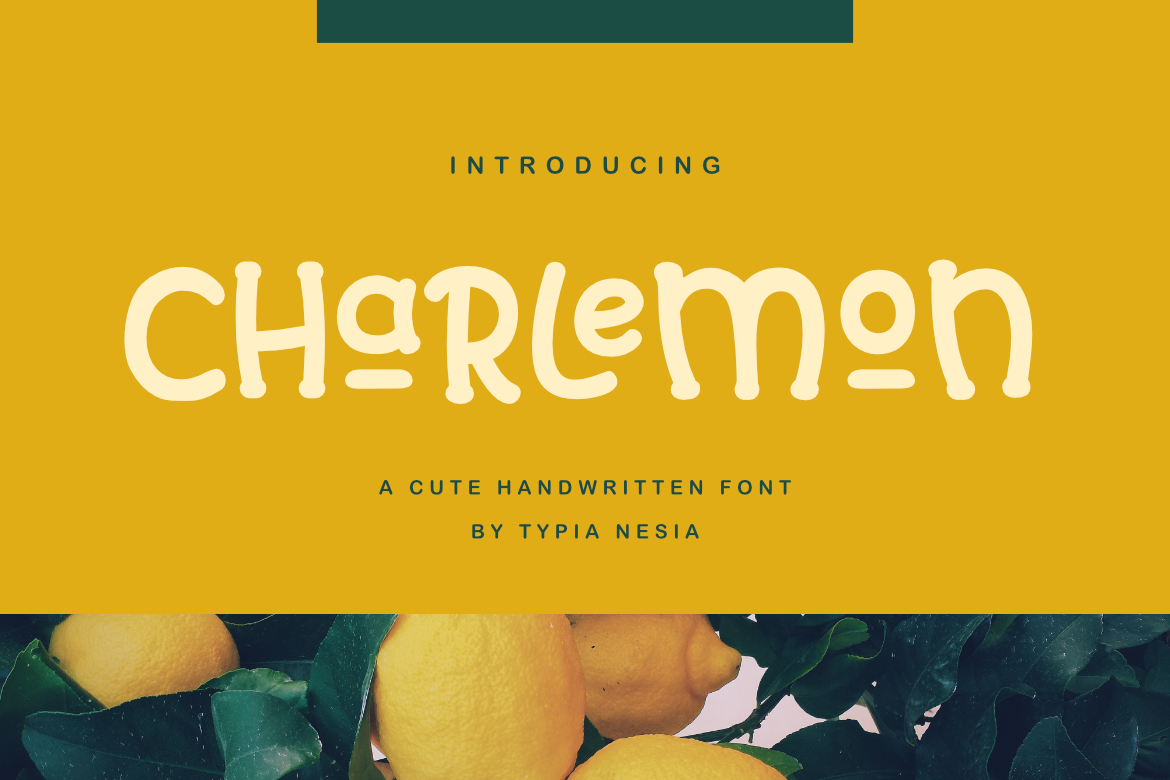
Charlemon a cute handwritten font.
It suitable for branding, crafting quote, t-shirt, poster, packaging, book cover, display design, cards, invitation and any cute handwriting needs and more.